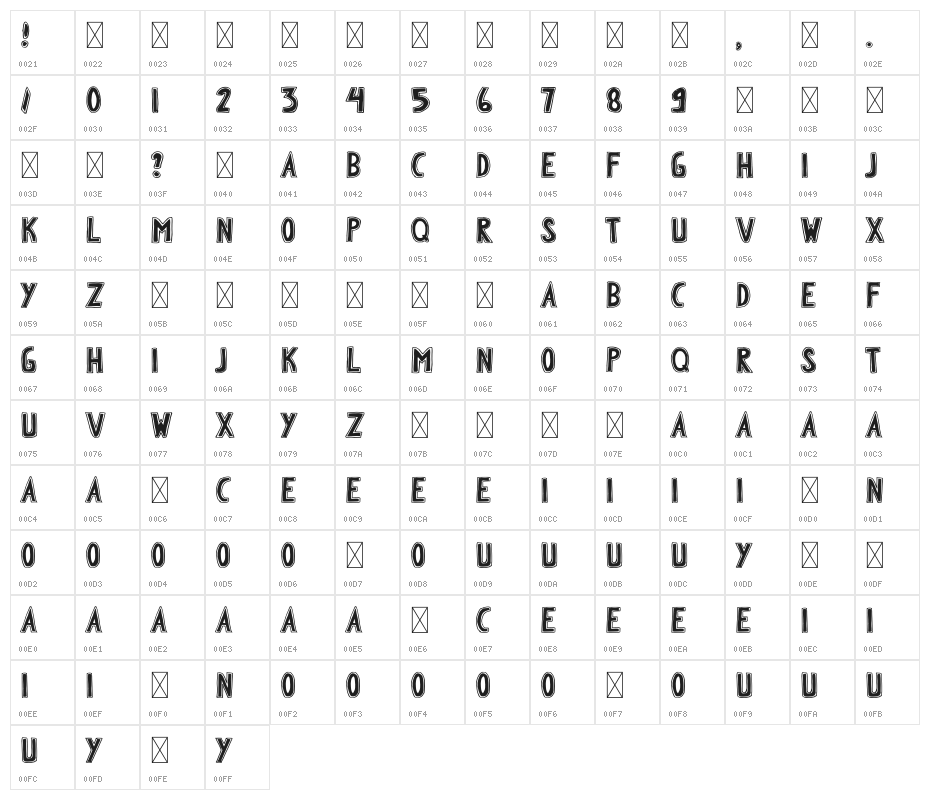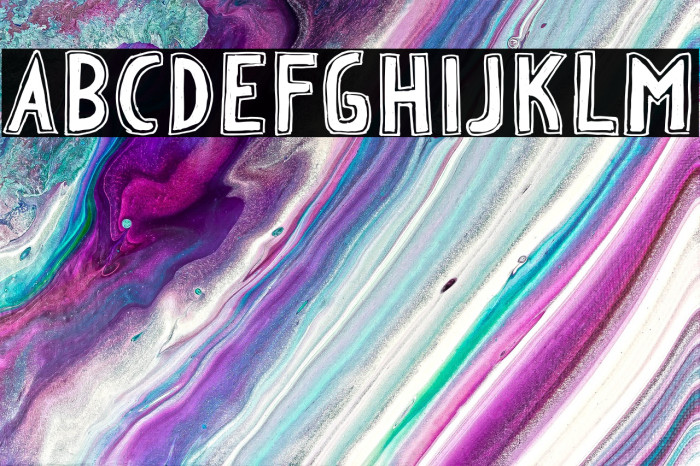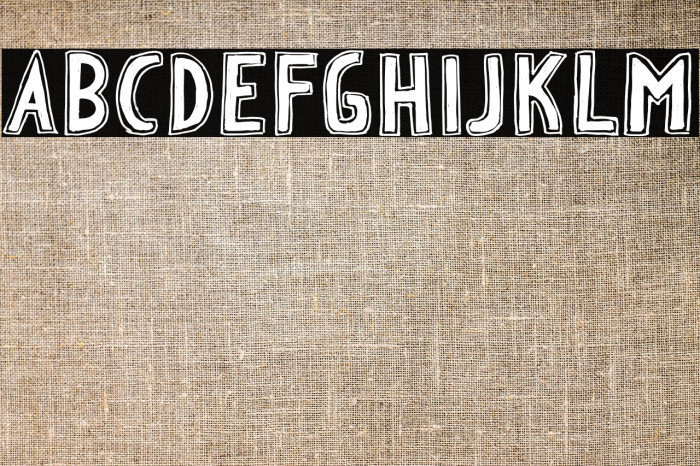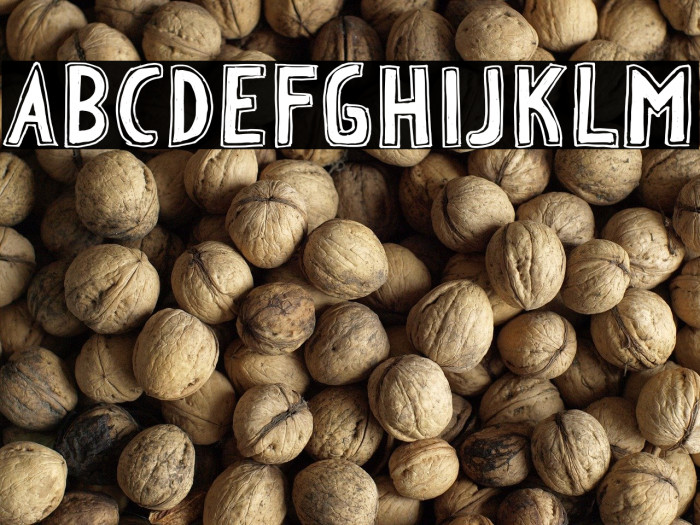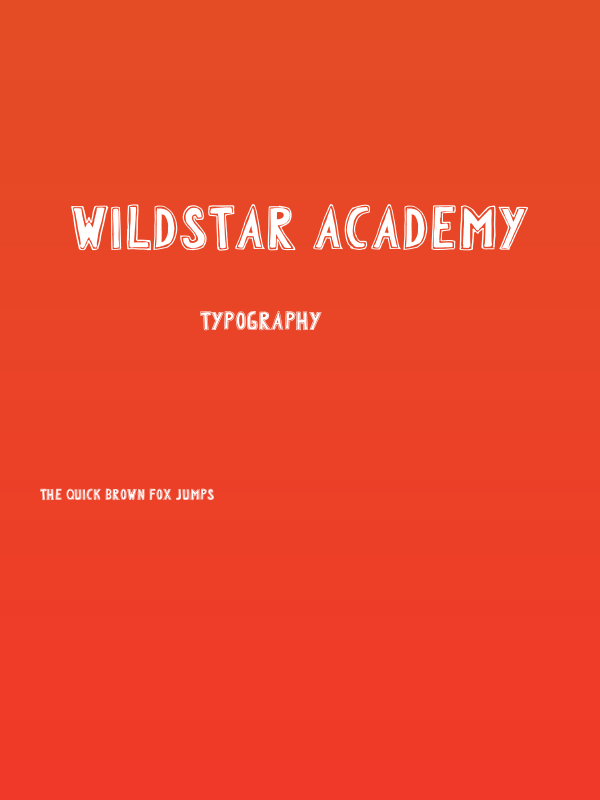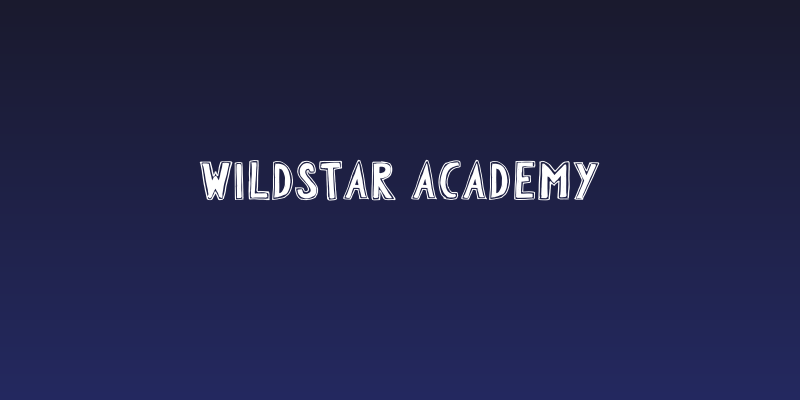
WILDSTAR ACADEMY Font
WILDSTAR ACADEMY Description
This font features a bold, hand-drawn style with a playful and energetic appearance. The letters are uppercase with a slightly uneven, organic shape that adds a sense of movement and dynamism. The strokes are thick and consistent, creating a strong visual impact. The numbers follow the same style, maintaining the bold and lively aesthetic. The special characters are designed to match the overall look, ensuring a cohesive appearance across all elements. This font is ideal for projects that require a fun and informal touch, such as children's books, posters, and creative branding.
| Proposed Projects | Ideal for children's books, playful posters, and creative branding. |